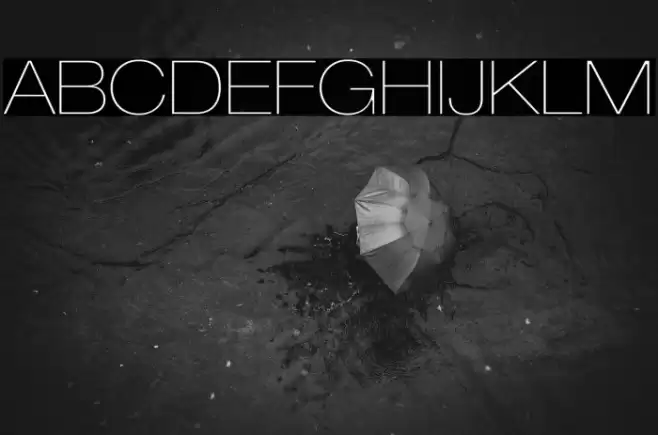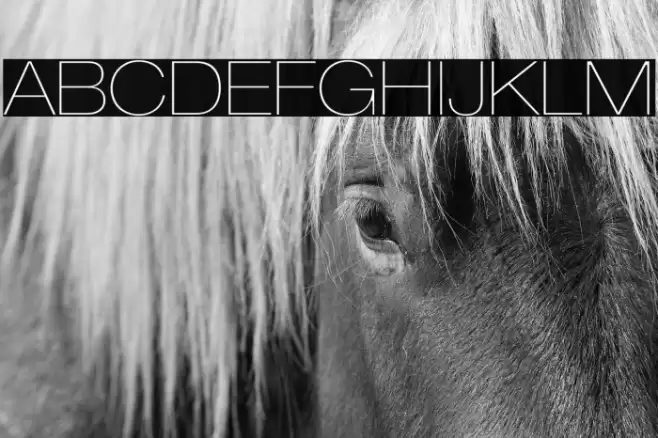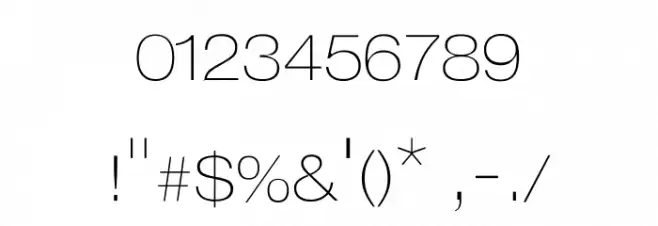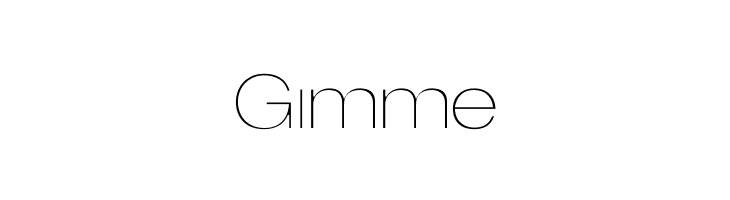
LowveticaUltraThin Font
LowveticaUltraThin Description
This font features an ultra-thin, minimalist design with clean lines and a modern aesthetic. The characters are evenly spaced, providing a balanced and airy appearance. The uppercase and lowercase letters maintain a consistent style, with a geometric influence that enhances its contemporary feel. The numerals and special characters are designed to match the sleekness of the alphabet, making it suitable for a variety of applications. Its simplicity and elegance make it ideal for projects that require a subtle yet sophisticated touch.
An ultra-thin, minimalist font with a modern, geometric style from Uncategorized fonts.
- Proposed Projects: Ideal for modern branding, minimalist posters, sleek web design, and elegant invitations.